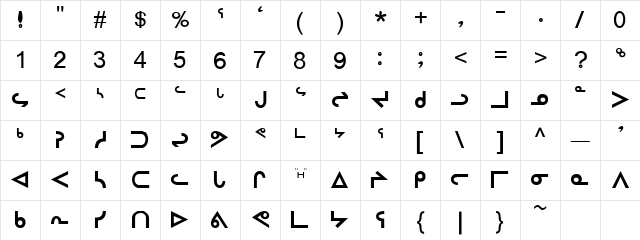
Inuktitut-Sri Regular Font Preview
Inuktitut-Sri Regular
Inuktitut-Sri Regular Font Details
Design Context for Inuktitut-Sri Typeface
Inuktitut-Sri offers clean, dependable letterforms without strong stylistic allegiance, making it a practical choice for designers who need flexibility.